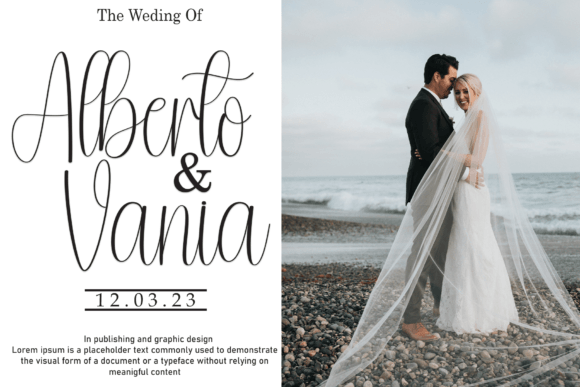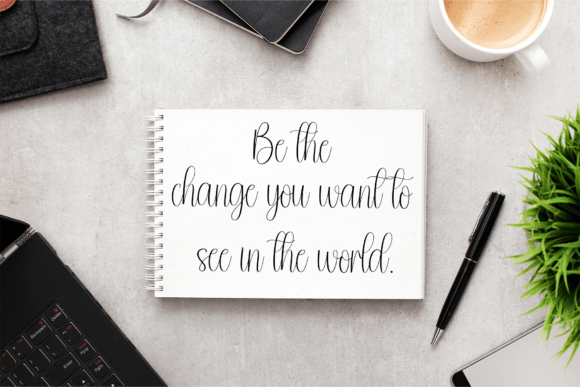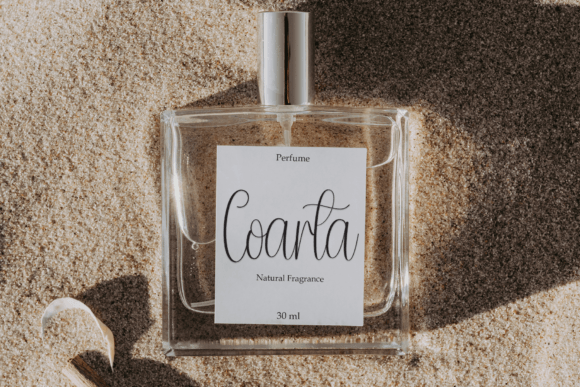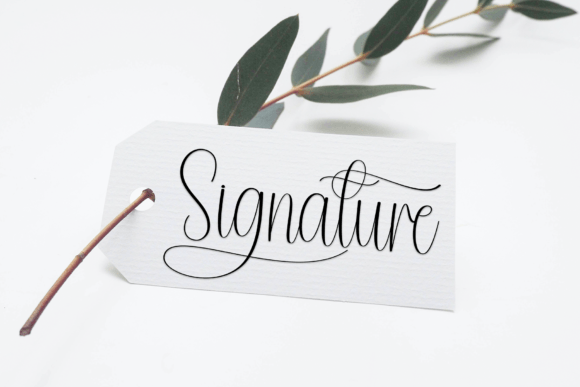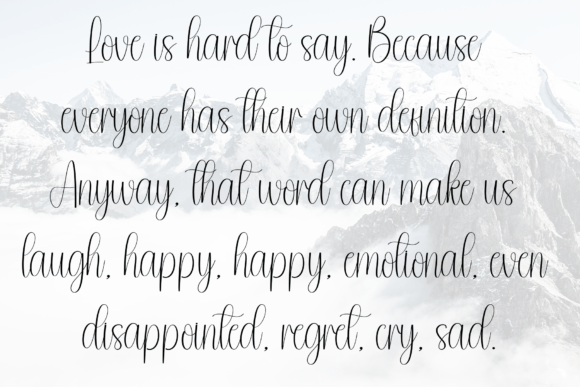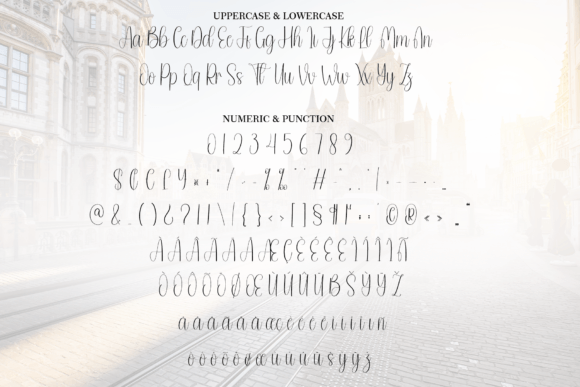
Introducing the Belgian Font: A Sweet and Friendly Handwritten Display Font
Are you looking for a font that can add a touch of whimsy and playfulness to your designs? Look no further than the Belgian Font! This sweet and friendly handwritten display font is perfect for creating eye-catching wedding invitations, cards, and other designs that require a fun and personal touch.
What Makes the Belgian Font So Special?
The Belgian Font is a unique and charming font that is sure to capture the attention of your audience. Its handwritten style gives it a personal and approachable feel, making it ideal for designs that require a touch of warmth and personality. Whether you’re creating wedding invitations, greeting cards, or social media graphics, this font is sure to add a playful and festive touch.
Characteristics of the Belgian Font
The Belgian Font has several characteristics that make it stand out from other fonts. Some of its key features include:
- Handwritten style: The Belgian Font has a beautiful, handwritten style that gives it a personal and unique touch.
- Cute and fun: This font is designed to be cute and fun, making it perfect for designs that require a playful touch.
- Display font: The Belgian Font is a display font, which means it’s designed to be used at larger sizes to make a bold statement.
- Easy to read: Despite its playful style, the Belgian Font is easy to read, making it perfect for use in a variety of designs.
Uses for the Belgian Font
The Belgian Font is a versatile font that can be used in a variety of designs. Some popular uses for this font include:
- Wedding invitations: The Belgian Font is perfect for creating beautiful and unique wedding invitations that set the tone for a special day.
- Greeting cards: This font is also great for creating greeting cards for birthdays, holidays, and other special occasions.
- Social media graphics: The Belgian Font can be used to create eye-catching social media graphics that are sure to grab the attention of your followers.
- Signs and posters: This font can also be used to create signs and posters for events, sales, and other promotions.
Tips for Using the Belgian Font
Here are a few tips for using the Belgian Font in your designs:
- Use it at larger sizes: The Belgian Font is designed to be used at larger sizes, so don’t be afraid to use it at sizes 24pt or larger.
- Pair it with other fonts: This font pairs well with other fonts, so feel free to experiment with different combinations to find the perfect look for your design.
- Use it sparingly: While the Belgian Font is a beautiful font, it can be overwhelming if used too much. Use it sparingly to add a touch of whimsy to your design.
The Belgian Font is a sweet and friendly handwritten display font that is perfect for adding a touch of whimsy and playfulness to your designs. With its cute and fun style, this font is ideal for use in wedding invitations, cards, social media graphics, and other designs that require a personal touch. So why not give it a try and see how it can add a touch of magic to your designs?